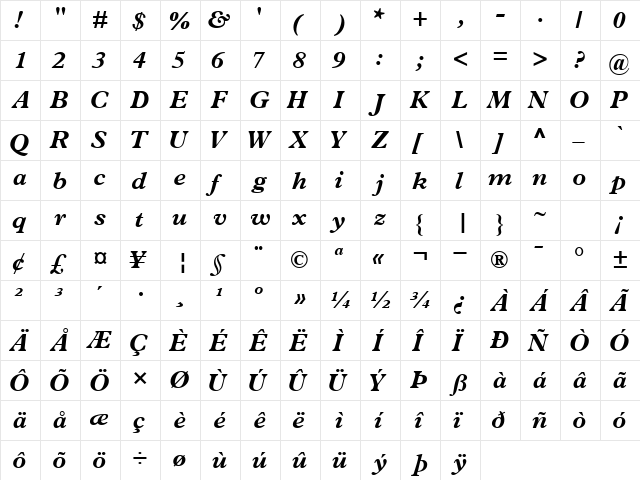
TerminusBlackSSK Italic Font Preview
TerminusBlackSSK Italic
TerminusBlackSSK Italic Font Details
Design Context for TerminusBlackSSK Typeface
TerminusBlackSSK offers clean, dependable letterforms without strong stylistic allegiance, making it a practical choice for designers who need flexibility. Its italic angle brings a sense of urgency and motion to the letterforms.
Pro Tip: Try TerminusBlackSSK for annotation and caption copy alongside an upright companion — the contrast in angle creates a dynamic but ordered typographic system.